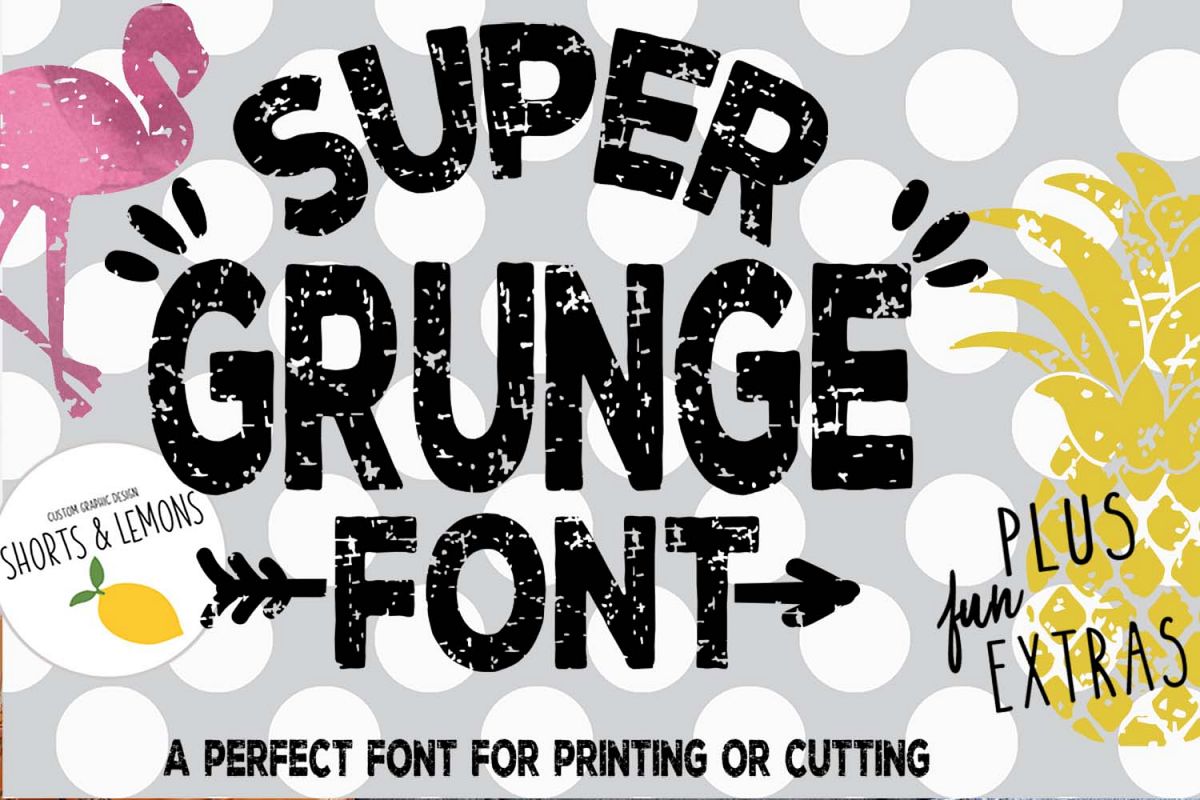
SUPER Grunge Font with Extras. Flamingo and Pineapple
Super Grunge Font is an all caps font that can be used to make a huge statement!!!
One of the things that is very different about this font is that is was originally designed to be cut with a machine like Cricut.  Then my customers let me know that it also looks fantastic in print!!
Flamingo, Palm leaf and Pineapple included
This is probably the only grunge font that you will find that is easy to weed when it is cut because of the way it is made. If you use a lint roller it is fast and very easy!!